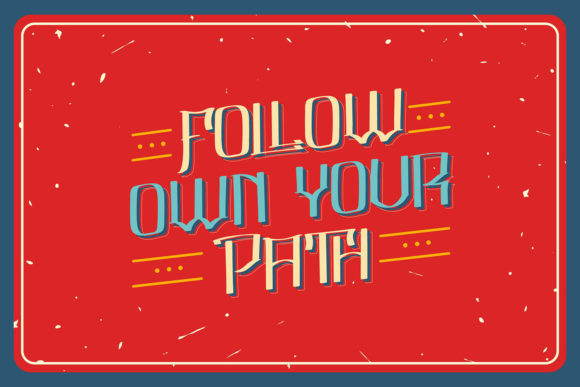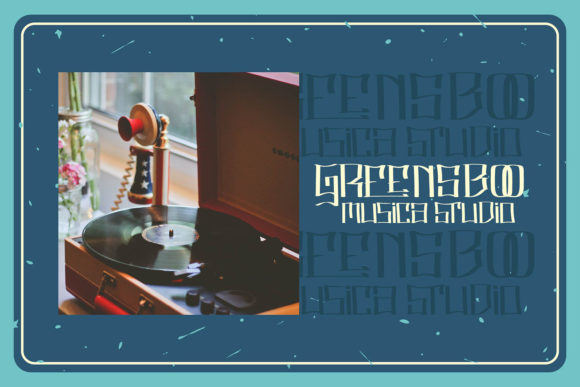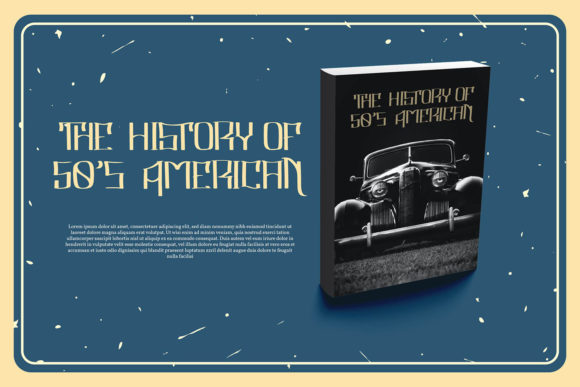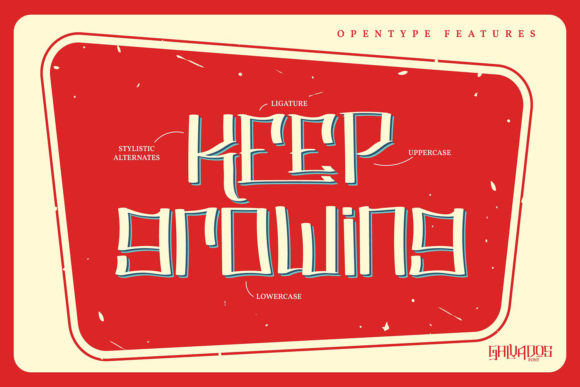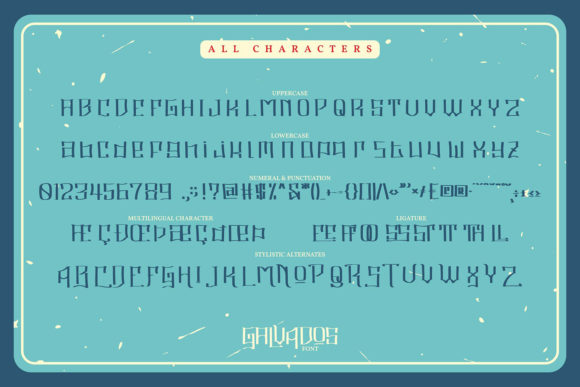
Introducing Galvados Font: A Vintage-Styled and Whimsical Display Font
Are you a designer or crafter looking for a unique and eye-catching font to elevate your creative projects? Look no further than Galvados Font, a vintage-styled and whimsical display font that’s sure to capture attention. In this article, we’ll explore the features and benefits of Galvados, and show you how to make the most of this amazing font.
What is Galvados Font?
Galvados Font is a beautifully crafted display font that’s inspired by the elegance and charm of vintage typography. With its whimsical and ornate letterforms, Galvados is perfect for creating eye-catching headlines, titles, and logos that are sure to stand out. Whether you’re designing a poster, brochure, or website, Galvados is the perfect choice for adding a touch of sophistication and personality to your work.
Galvados Font offers endless possibilities for designers and crafters. Whether you’re creating a logo, poster, or social media graphic, Galvados provides the perfect combination of style and versatility. Here are just a few ideas to get you started:
- Create eye-catching headlines and titles for your blog or website
- Design stunning posters and flyers for events and promotions
- Develop a unique and memorable logo for your brand or business
- Add a touch of elegance and sophistication to your social media graphics
- Use Galvados to create beautiful and decorative quotes and phrases for your craft projects
Key Features of Galvados Font
Here are some of the key features that make Galvados Font so special:
- Vintage-styled and whimsical design
- Perfect for display text, headlines, and titles
- Endless possibilities for creative expression
Tips for Using Galvados Font
Here are some tips for getting the most out of Galvados Font:
- Experiment with different font sizes and colors to create visual interest
- Use the glyphs and swashes to add personality and flair to your text
- Combine Galvados with other fonts to create a unique and eye-catching look
- Don’t be afraid to get creative and try new things – Galvados is a versatile font that’s perfect for experimentation